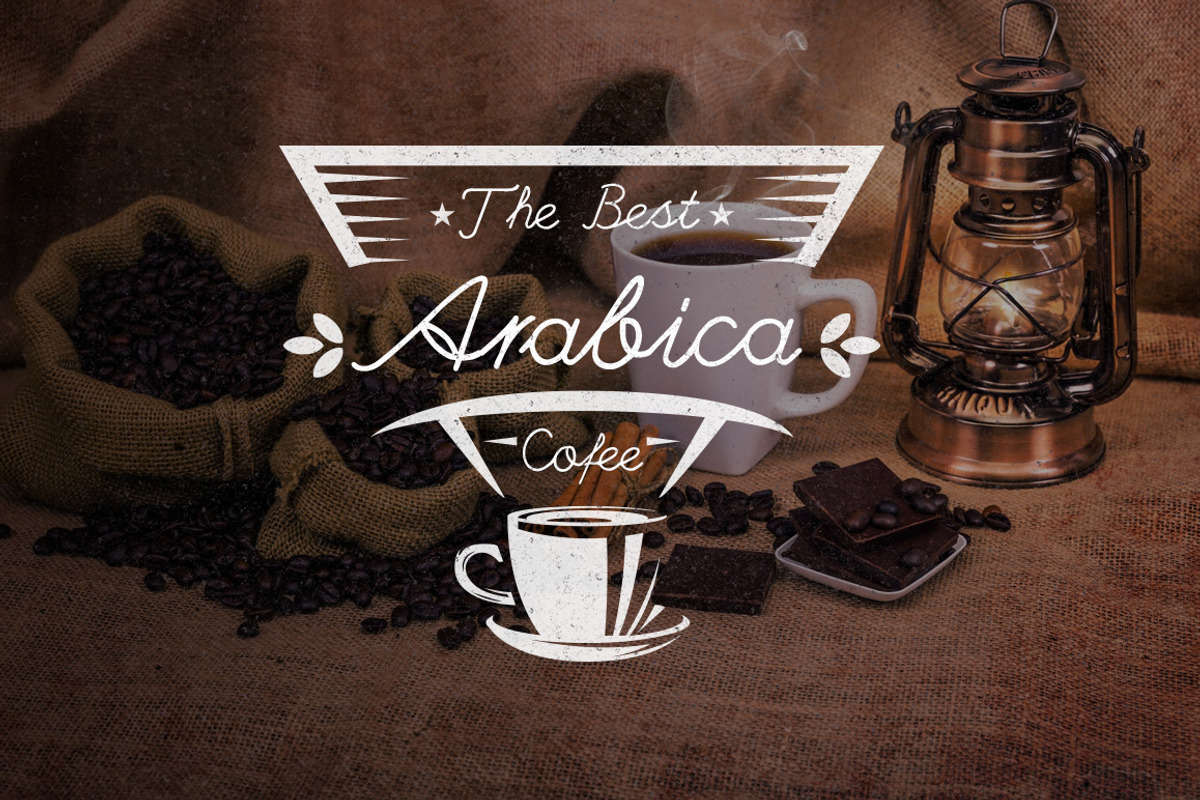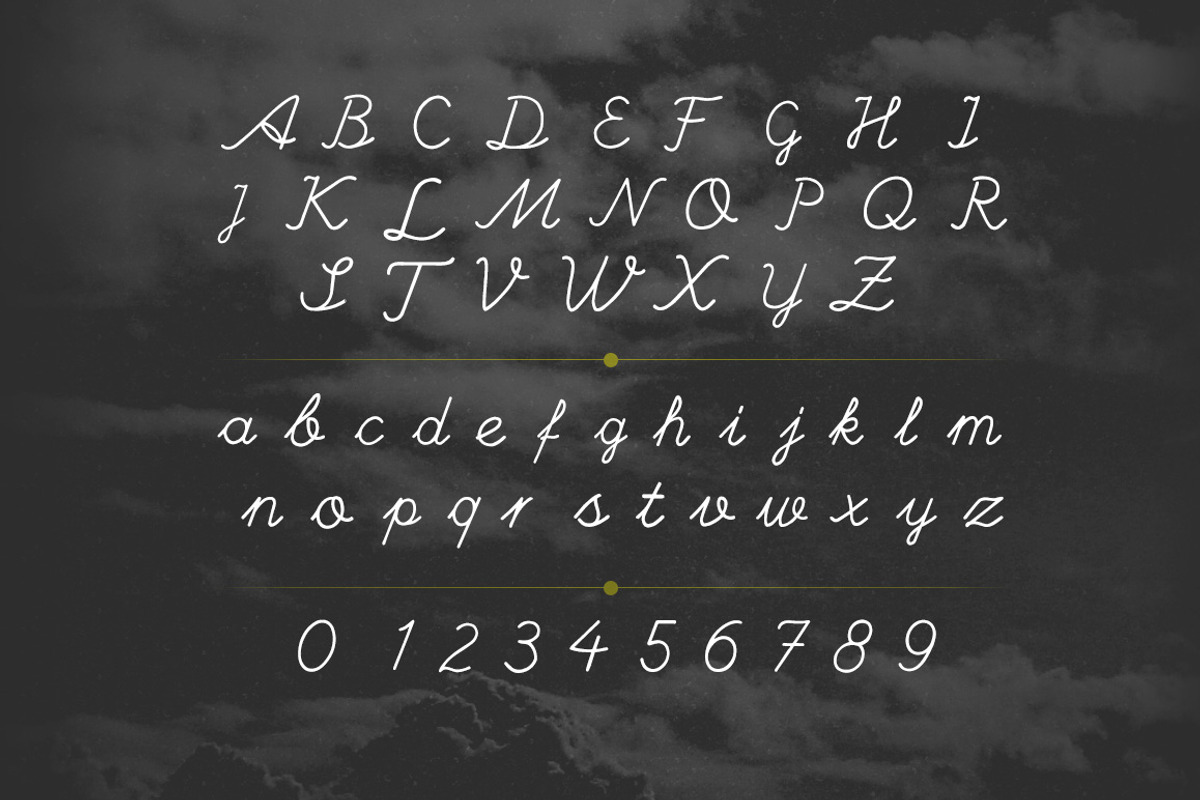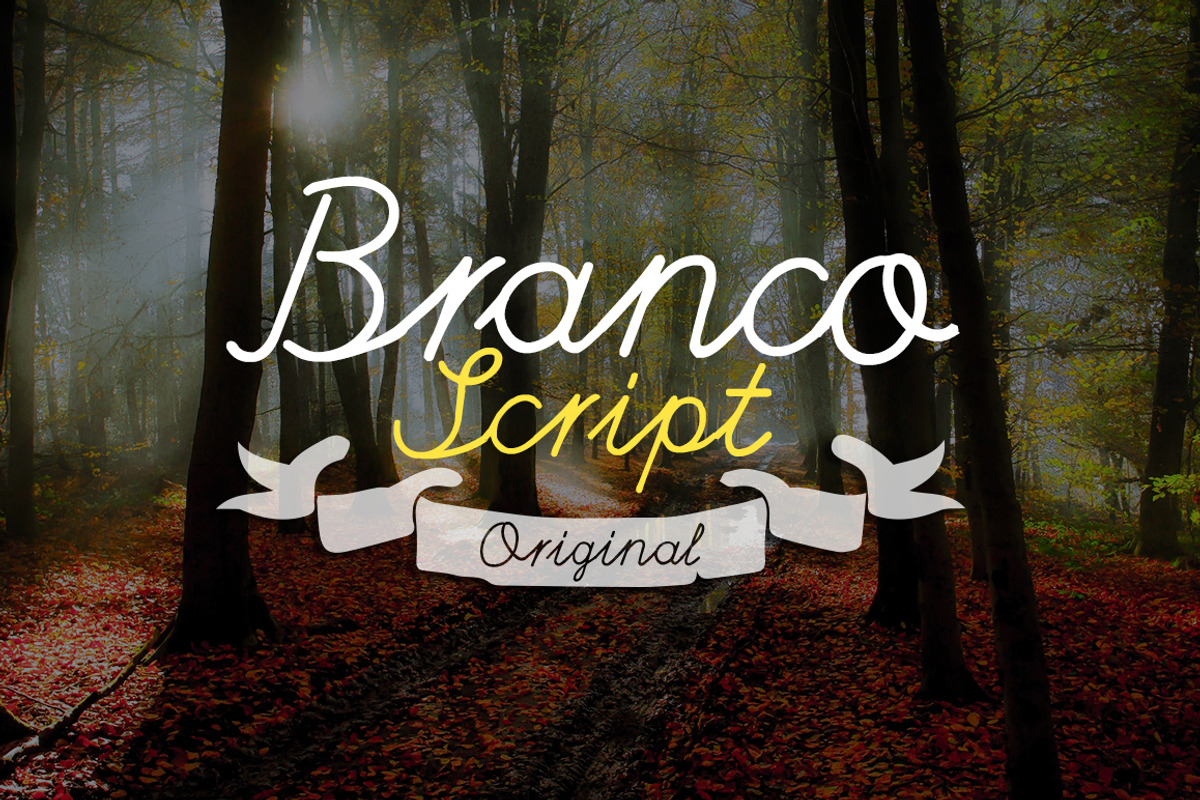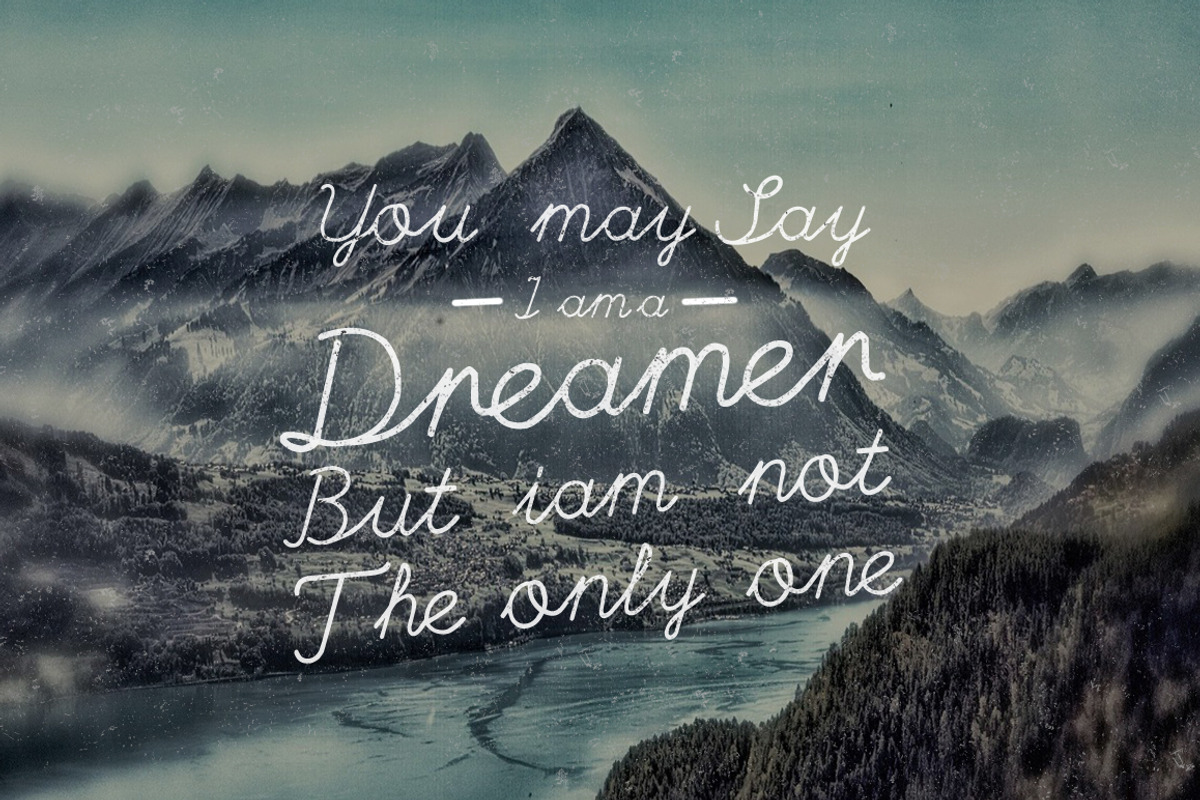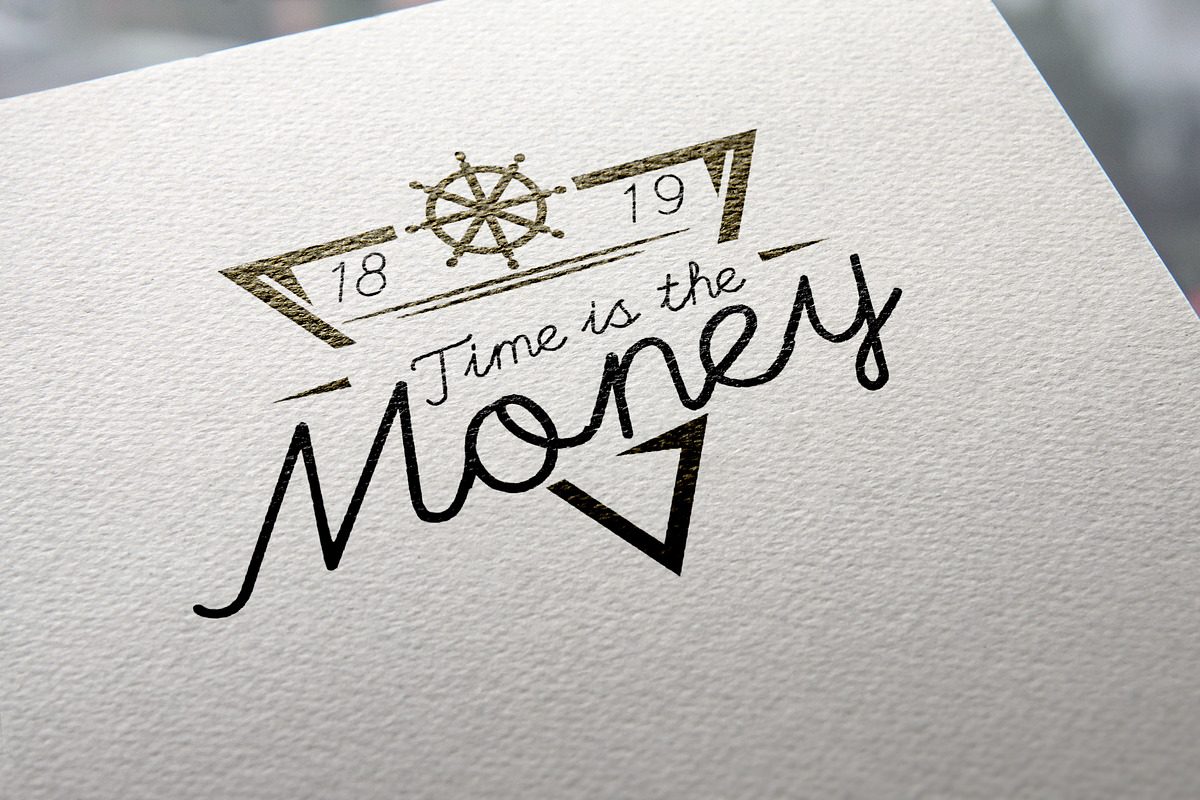
This is the Branco Script font family , A lovely hand lettered script font, that includes long connections between letters so you can create beautiful headings or signature looks. including initial and terminal letters, So you can create realistic hand on all of your creations!